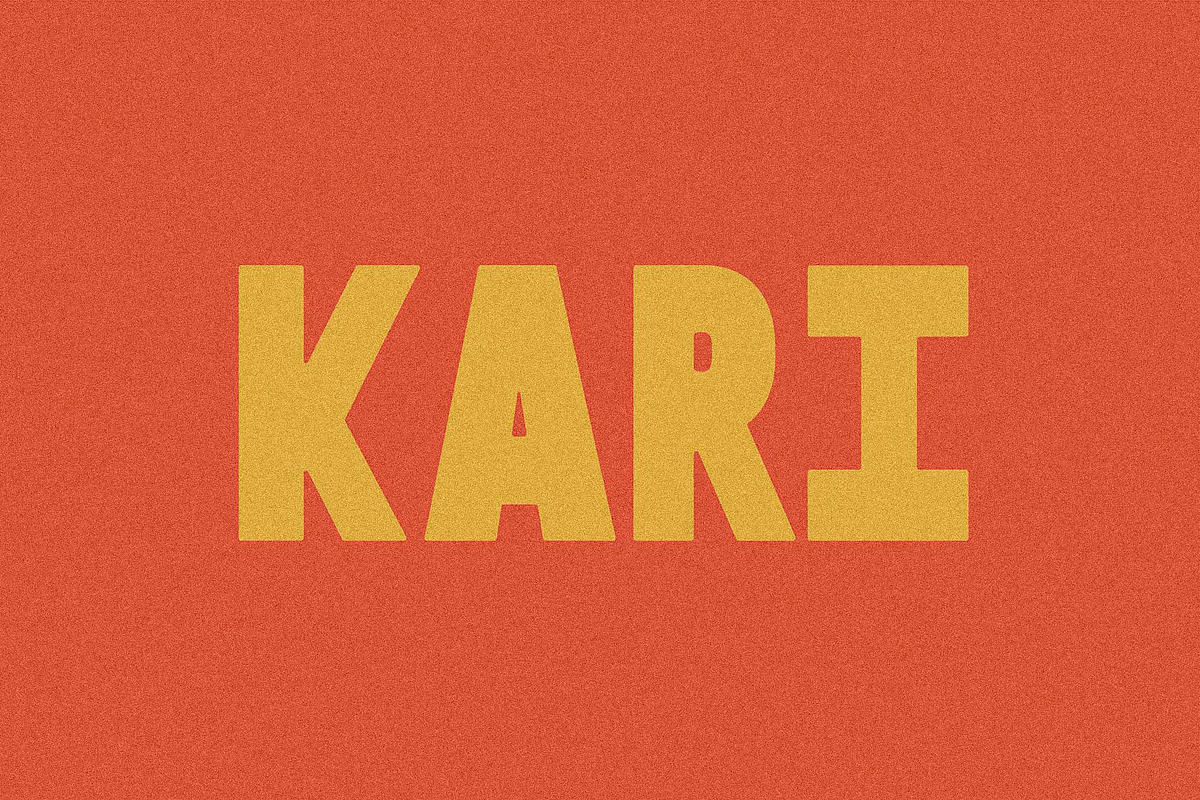
Step into the future of typographic efficiency with Kari Type — a bold and innovative collaborative typeface born from the creative synergy of the designer and Abraham at Sabio Salon. Designed for speed, clarity, and smart adaptability, Kari Type delivers powerful design flexibility in a compact package. Whether you’re pushing tight layouts or crafting clean, minimalist interfaces, this font gives you the control you need — instantly.
Smart Design, Smarter Workflow: The Shift Key Innovation
What sets Kari Type apart isn’t just its clean aesthetic — it’s how it works. Introducing a clever, intuitive feature: standard and condensed letterforms accessed via a simple shift key press. No switching files. No complex software tricks. Just hold down Shift while typing, and watch your typography transform. This dynamic switching makes it perfect for tight designs like infographics, magazine layouts, or mobile interfaces where space is precious but visual impact must remain high.
Imagine building a headline with punchy, wide letters — then instantly adjusting it to fit a smaller space without breaking the design flow. Kari Type empowers you to do exactly that, seamlessly and in real time.
Core Features You Can Rely On
- Uppercase A-Z with Stylistic Alternates – Clean, geometric letterforms with subtle variations for visual interest and uniqueness.
- Compact Condensed Versions – Fully integrated condensed form accessible via Shift key, enabling space-saving typography without sacrificing clarity or design integrity.
- Numbers 0–9 and Basic Punctuation – Fully functional for data displays, labels, and numerical content.
- Minimalist, Professional Aesthetic – Designed with clean lines and balanced proportions for a modern, timeless look across print and digital media.
Where Kari Type Shines: Applications That Demand Efficiency
Designed with the creative workflow in mind, Kari Type excels in environments where precision and layout efficiency are top priorities.
- Branding & Logos – Create striking, adaptable brand marks where width and impact matter.
- Editorial Design – Use the condensed version for tight body text or subtitles while keeping the standard form for main headlines.
- Infographics & Data Visualization – Fit more content into smaller spaces without clutter, maintaining readability and style.
- UI/UX & Web Interfaces – Optimize space in headers, navigation menus, and buttons with minimal visual noise and maximum clarity.
- Print & Packaging – Perfect for labels, tags, and product inserts where every millimeter counts.
Engineered for Designers, Built by Creators
Kari Type is more than a font — it’s a statement of collaboration. Developed by the creator and Abraham at Sabio Salon, it embodies a shared vision: creating tools that don’t just look good but work better. This collaboration bridges design intuition and technical precision, resulting in a font that’s not only beautiful but functional in high-pressure creative environments.
Whether you’re a designer optimizing layouts, a marketer crafting urgent campaigns, or a visual artist exploring new forms of expression, Kari Type adapts to your pace, not the other way around.
Ditch the limitations of static fonts. With Kari Type, you gain a dynamic, interactive, and intelligent tool that works as hard as you do. It’s ready to use out of the box, requires no extra setup, and gives you instant control over your typography’s width and impact.